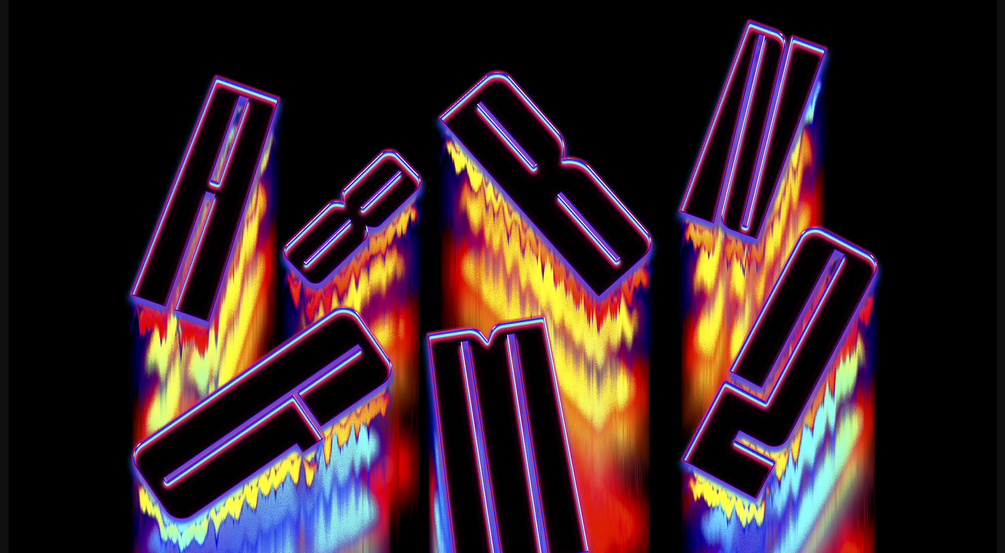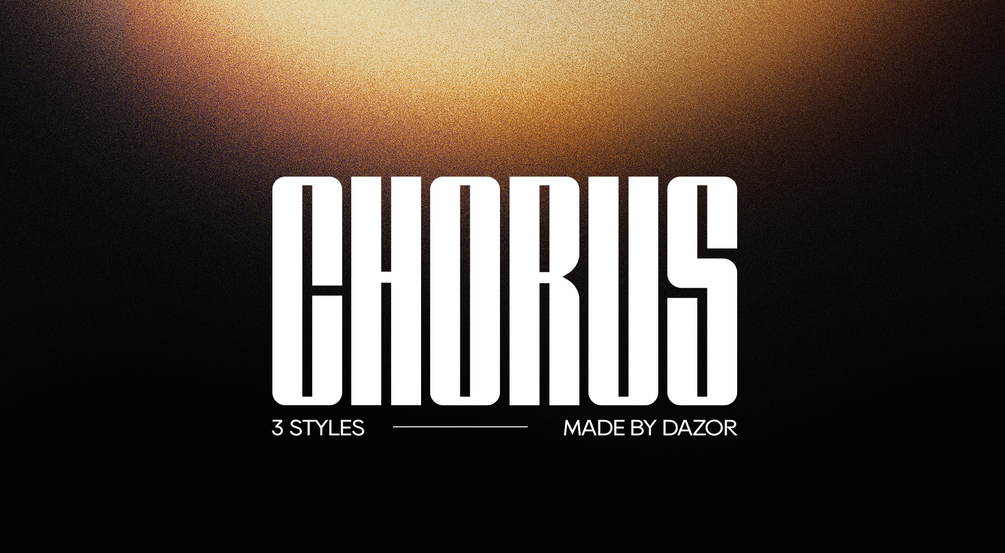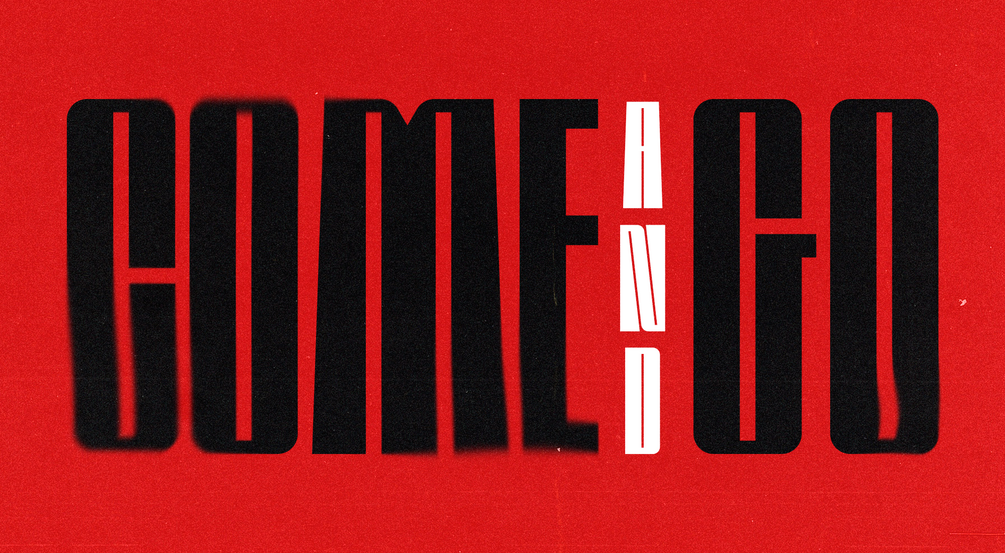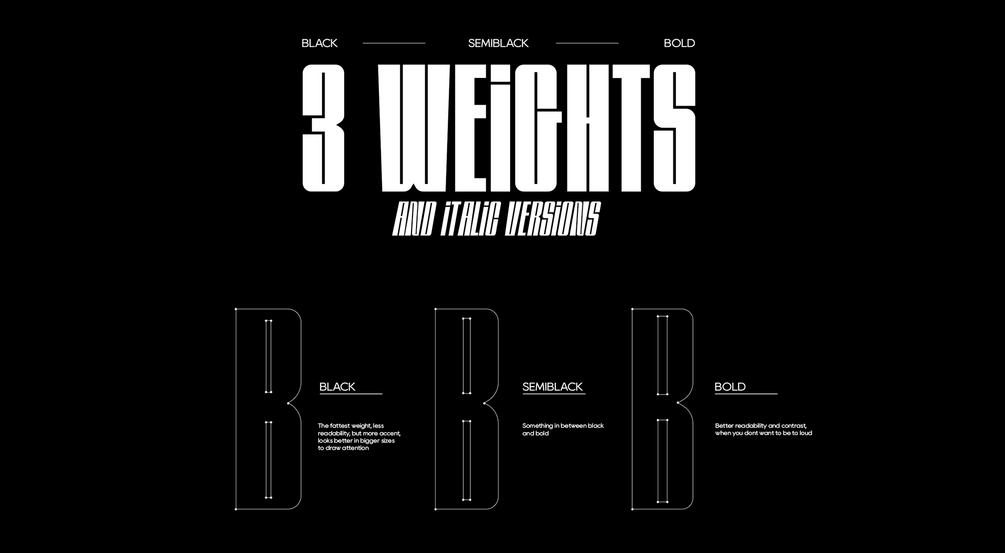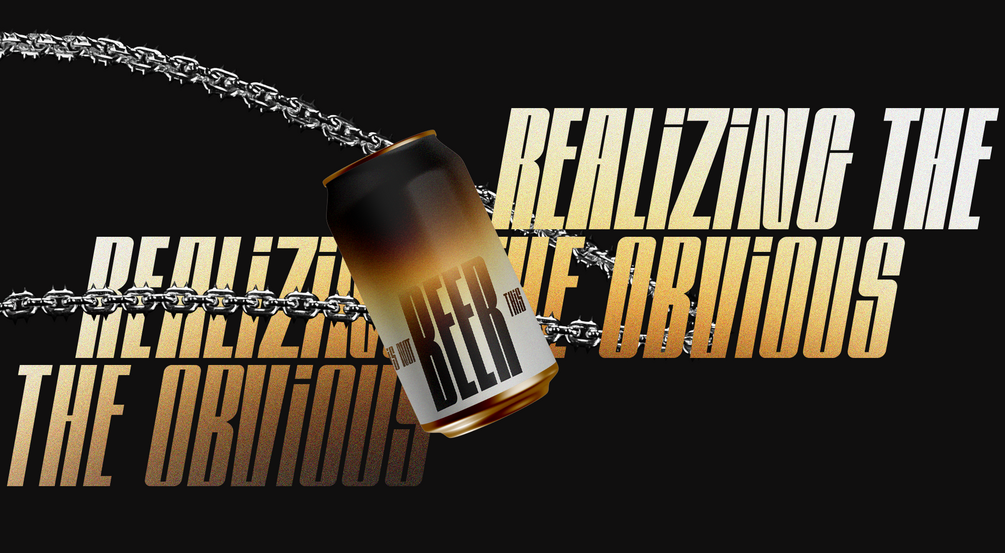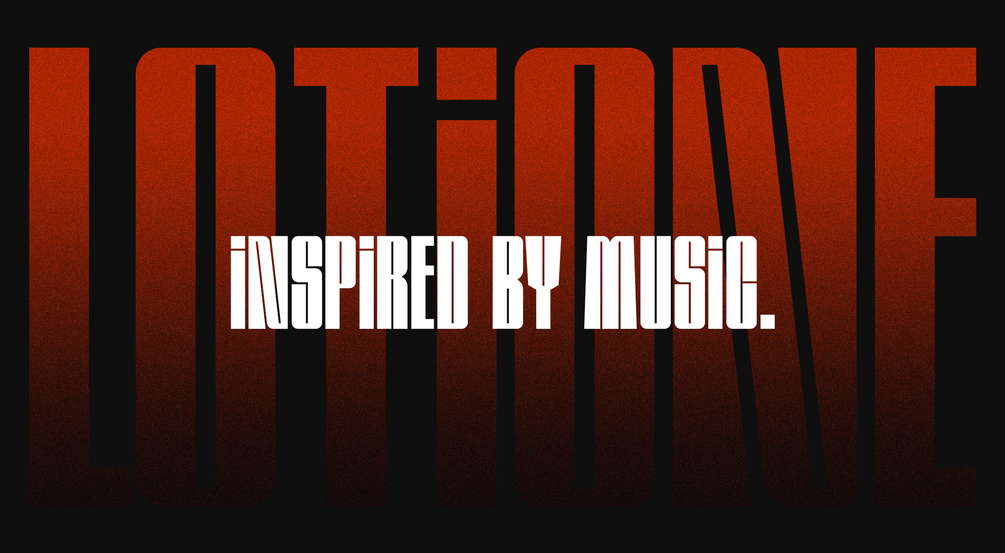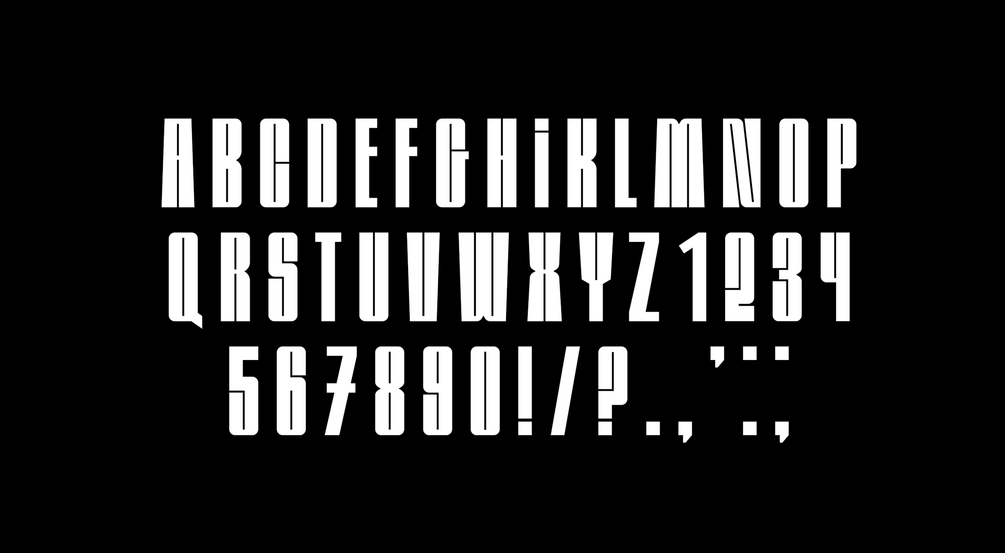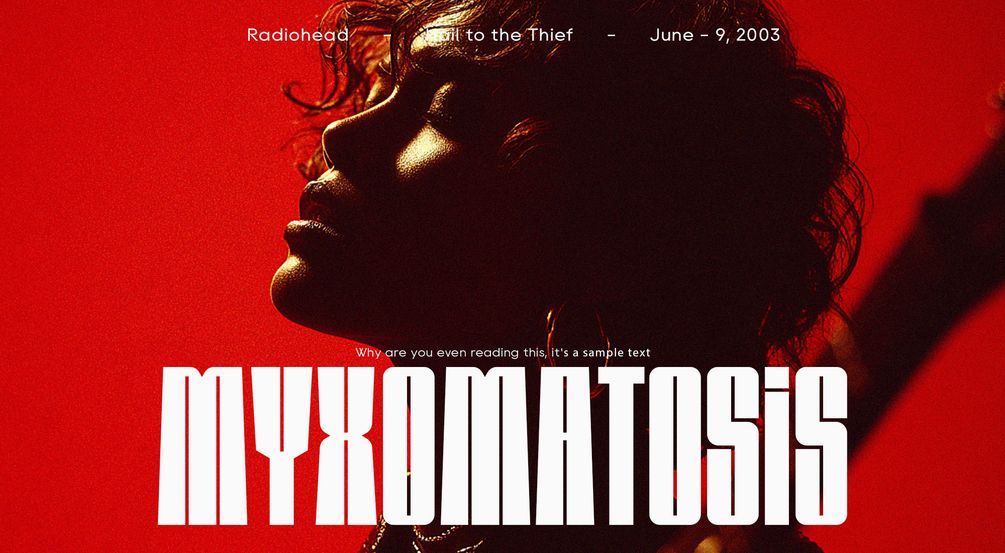
CHORUS - Display Typeface
CHORUS is my new font.
It Includes 3 weights:
- Black
- Semi-black
- Bold + italic versions
A bold, contemporary display font inspired by music, rhythm, and visual motion. It’s designed to make words feel alive - sharp, dynamic, and expressive without losing structure. Ideal for posters, album covers, branding, and headlines that demand strong visual presence.